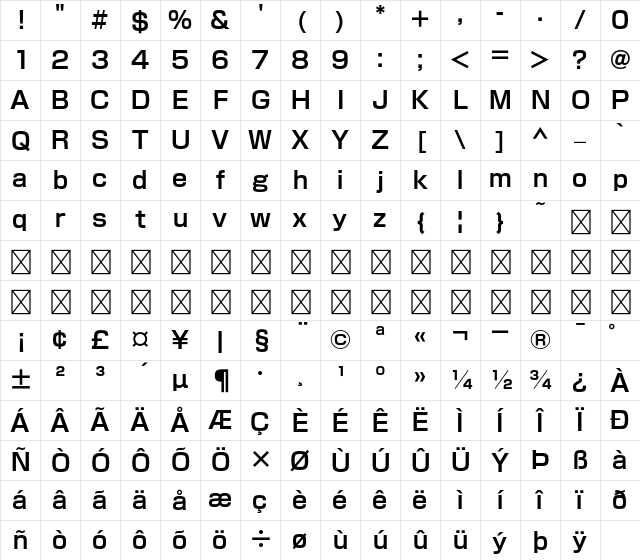
A-OTF Shin Go Pro DB
Style: DB
Complete A-OTF Shin Go Pro DB glyph index. Displaying only characters natively supported by A-OTF Shin Go Pro DB font.
Design Context for A-OTF Shin Go Pro
A-OTF Shin Go Pro is a composed and adaptable typeface that performs quietly and consistently across a wide range of design contexts.